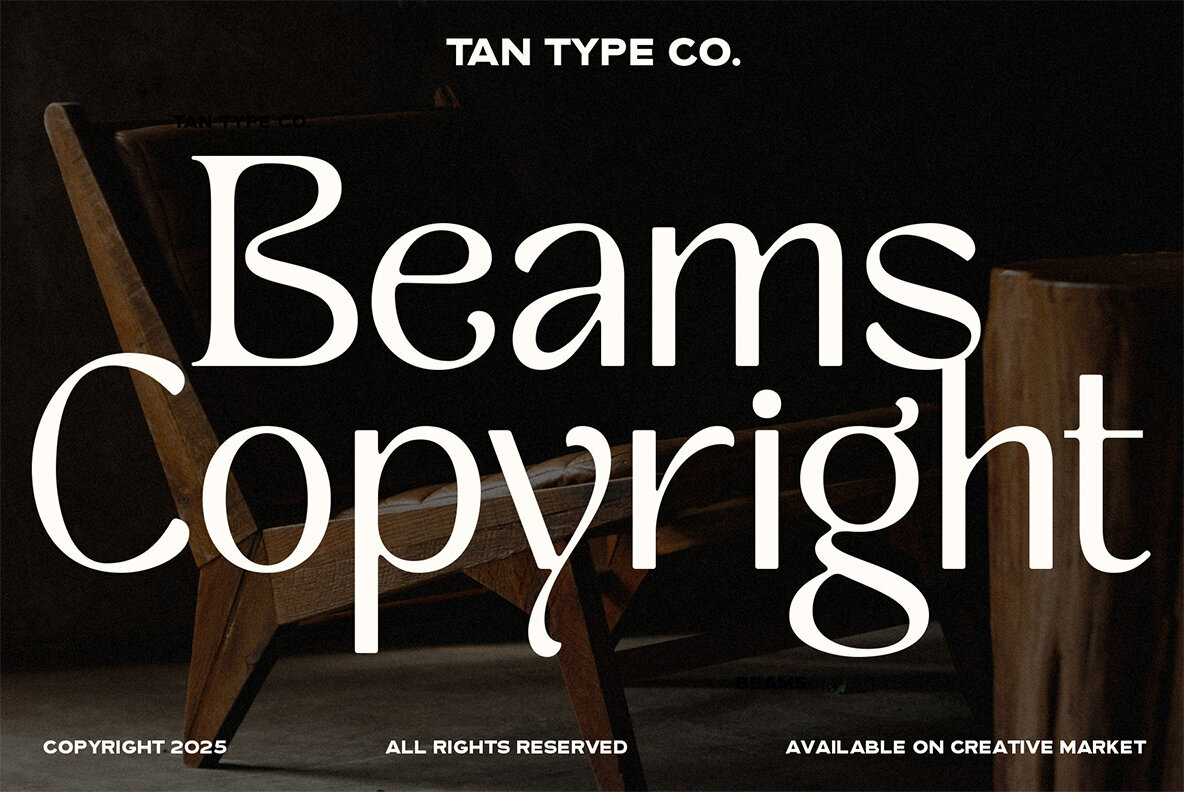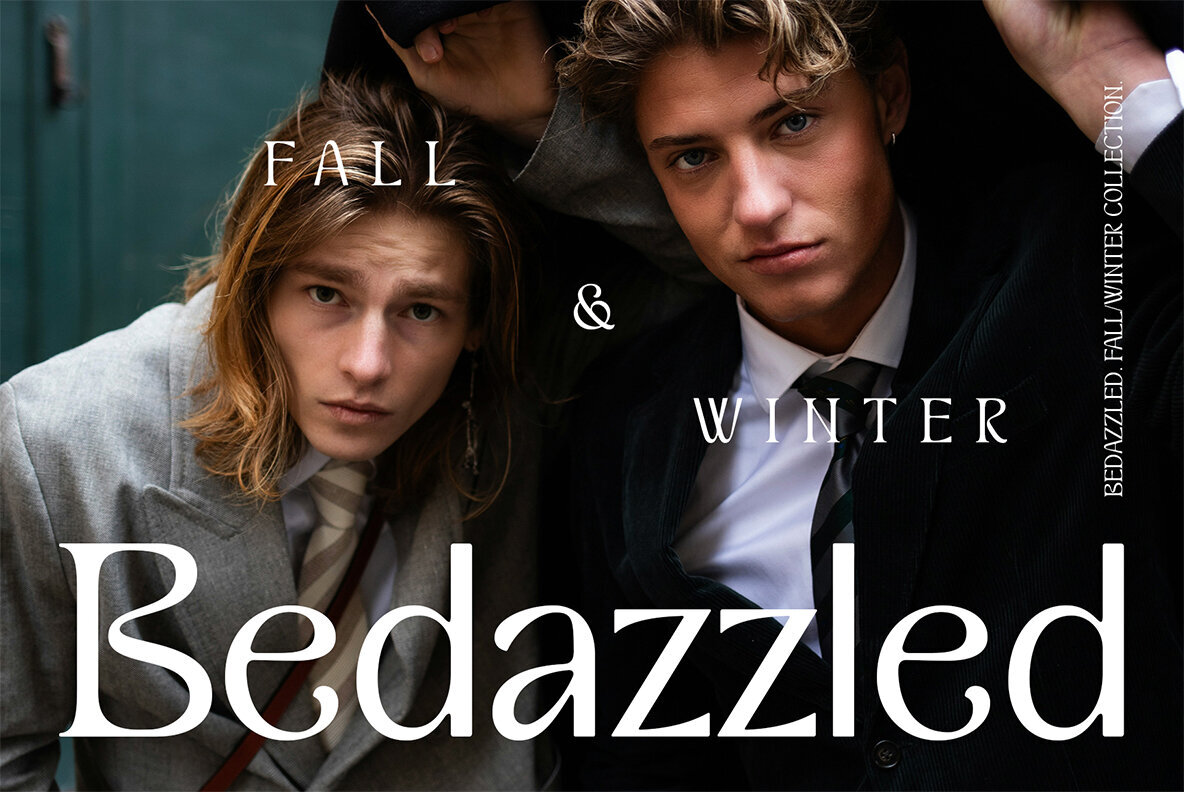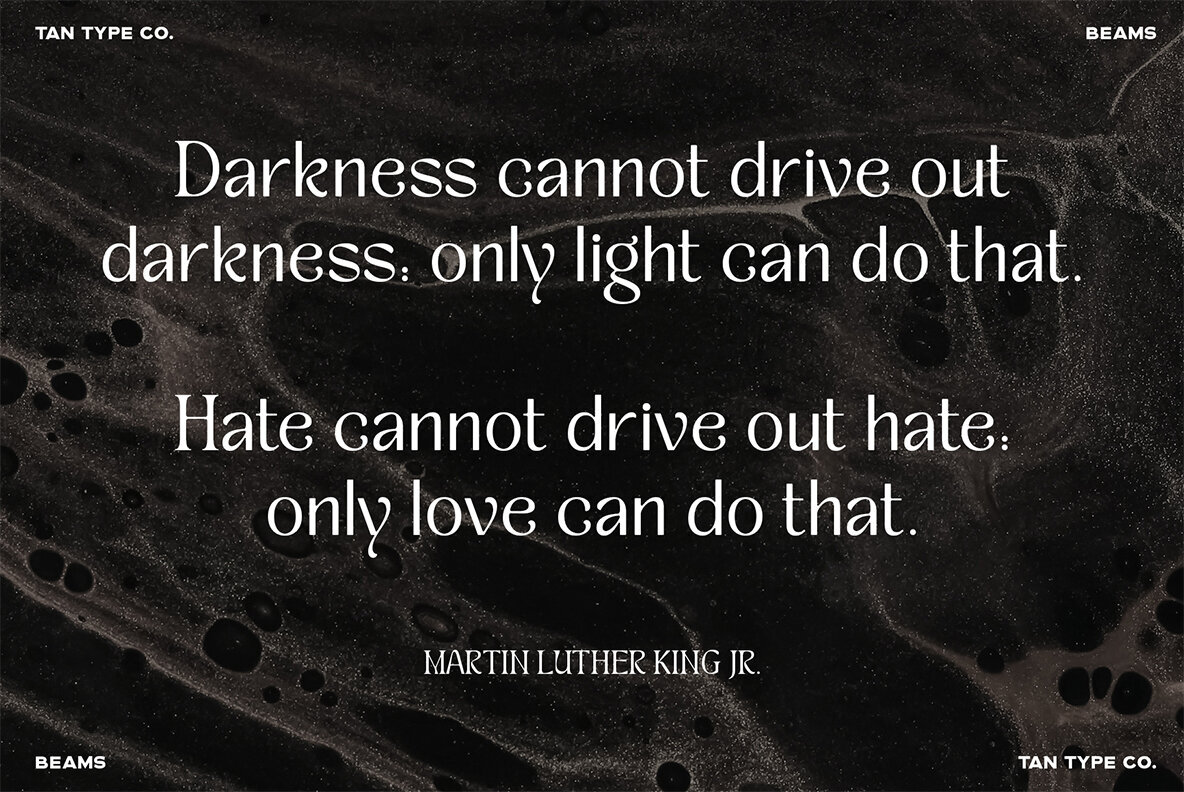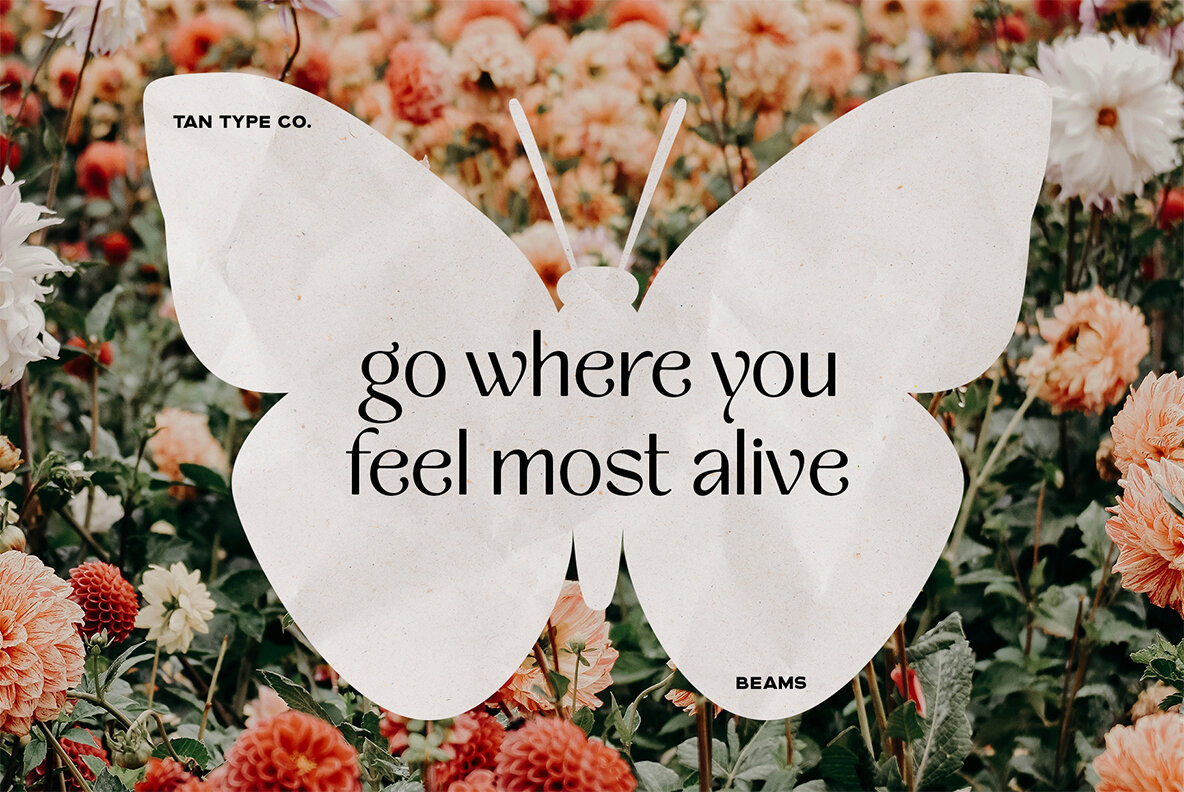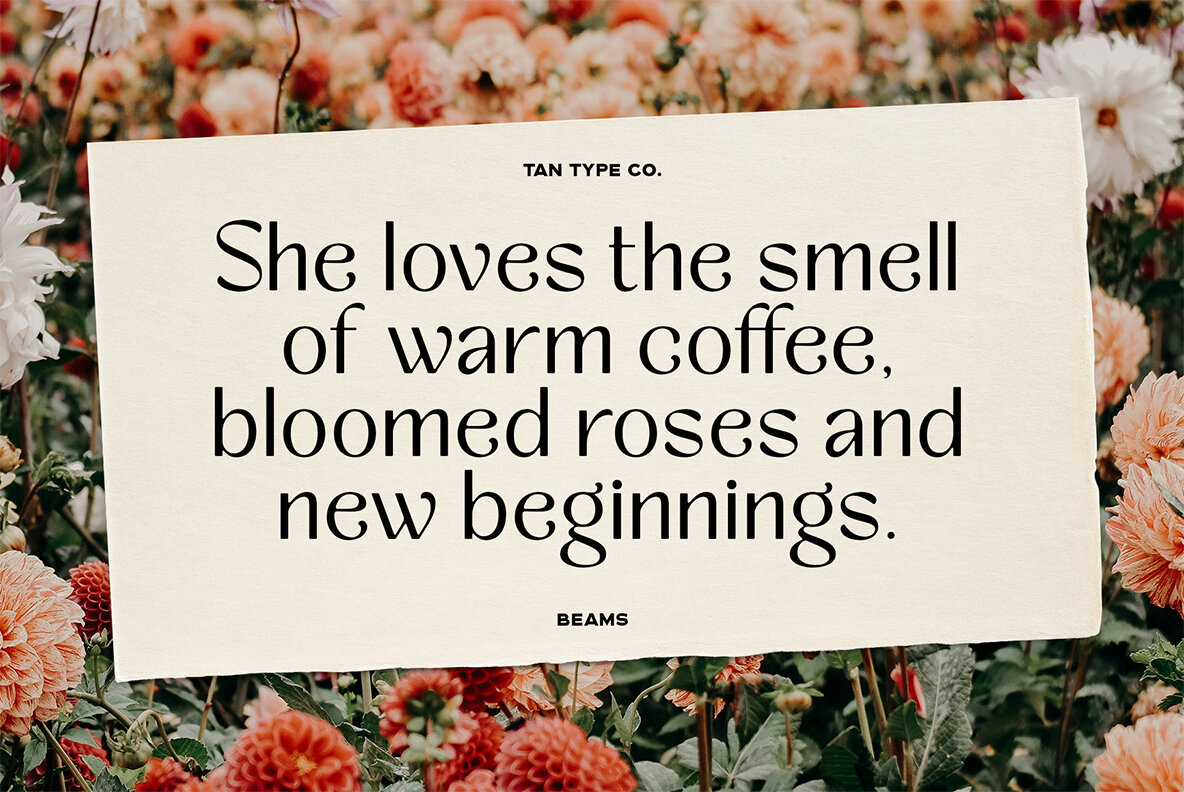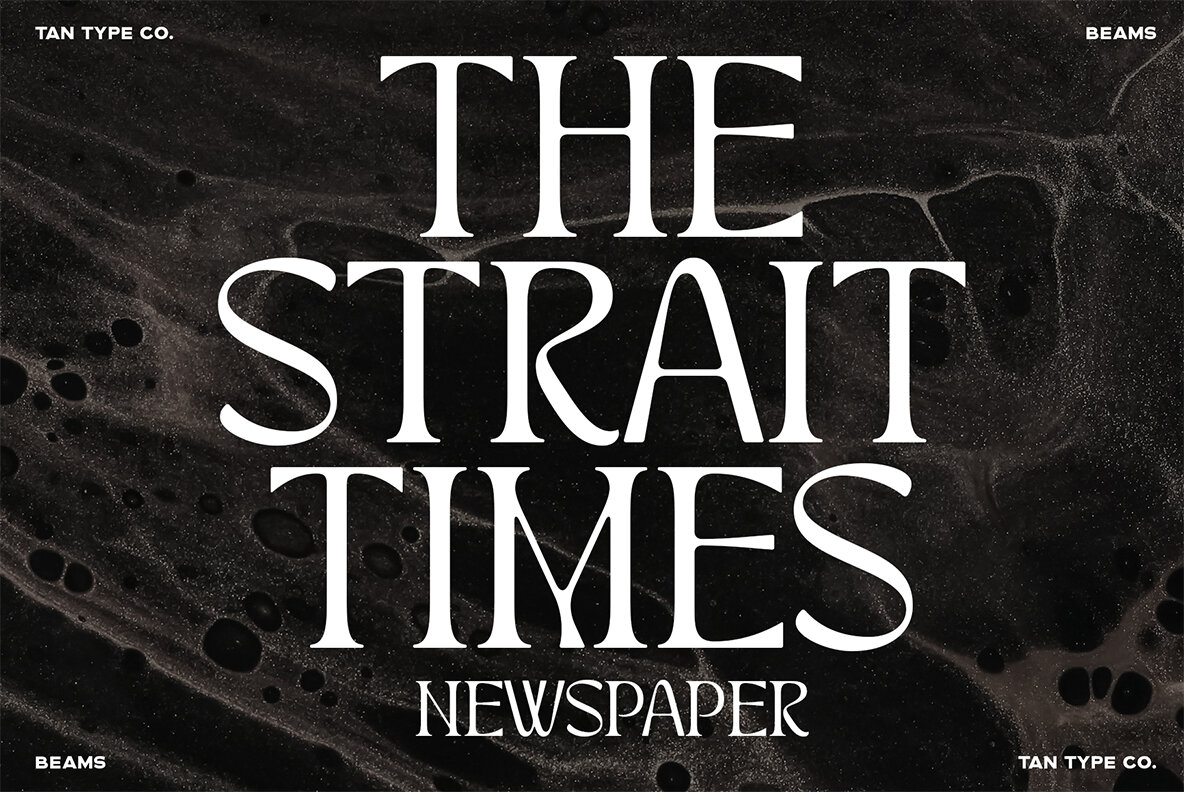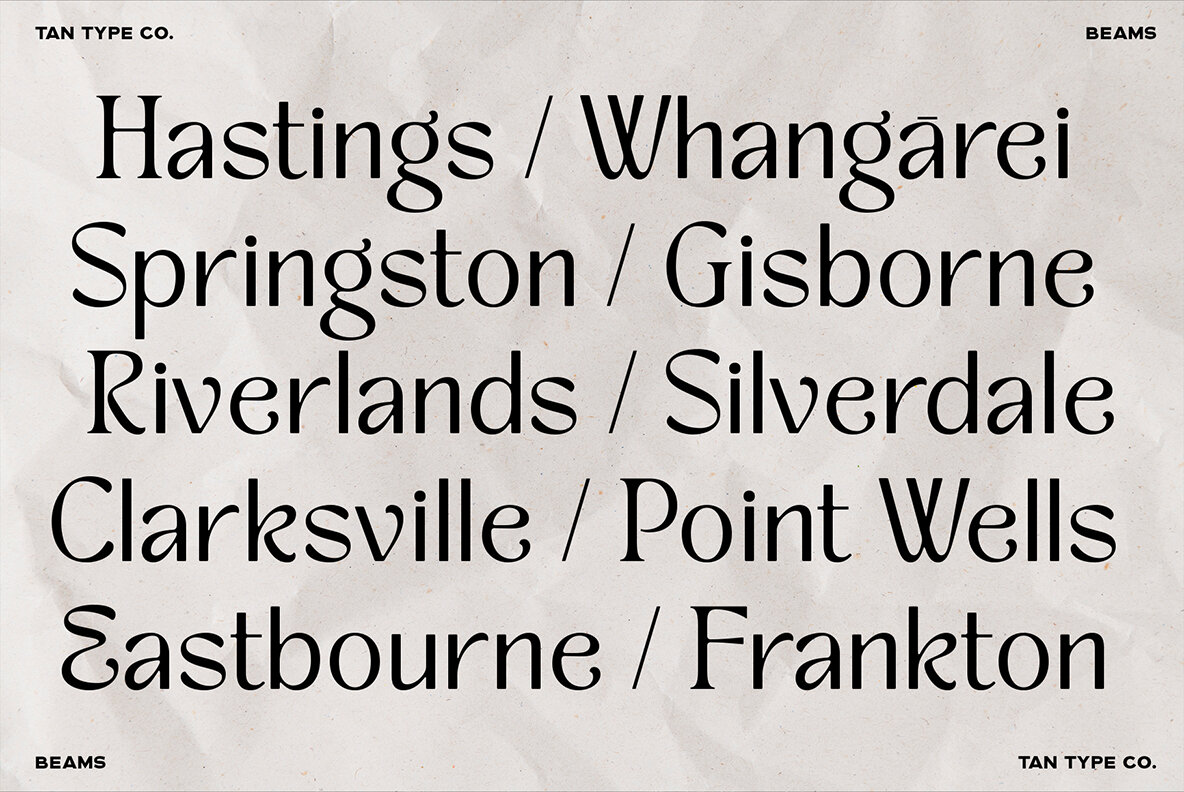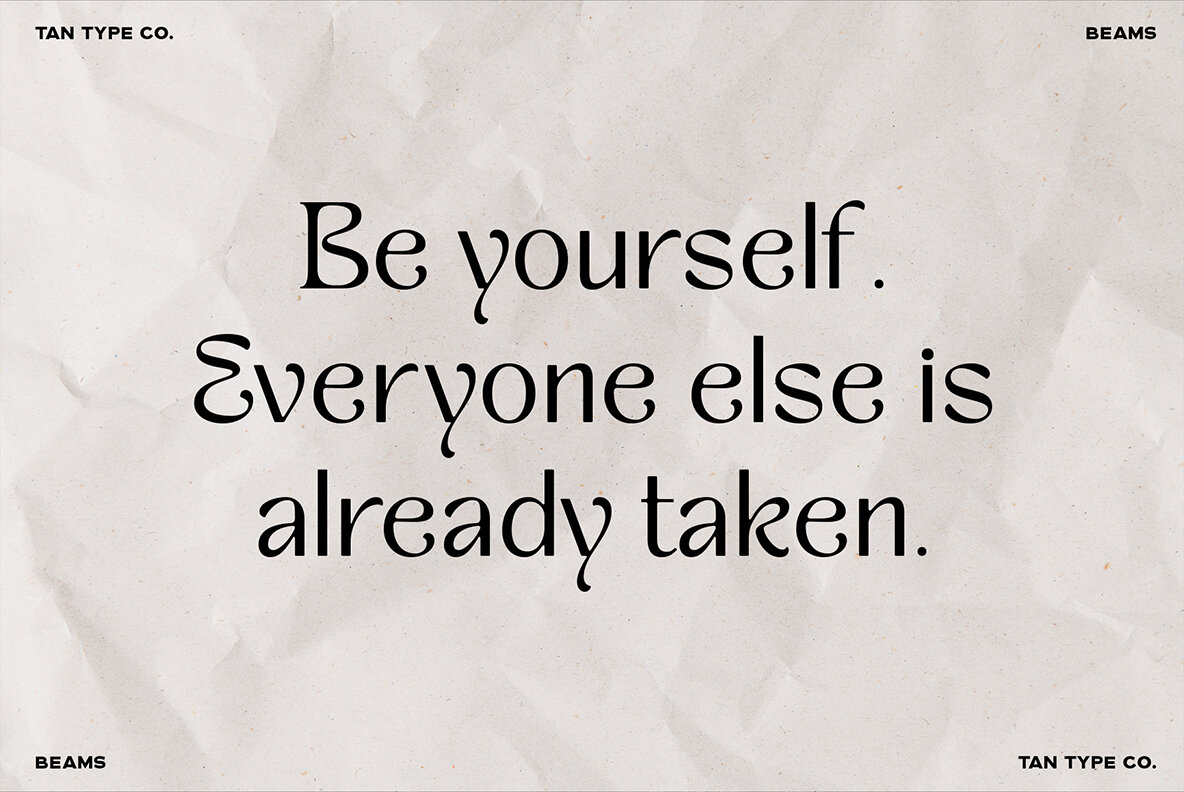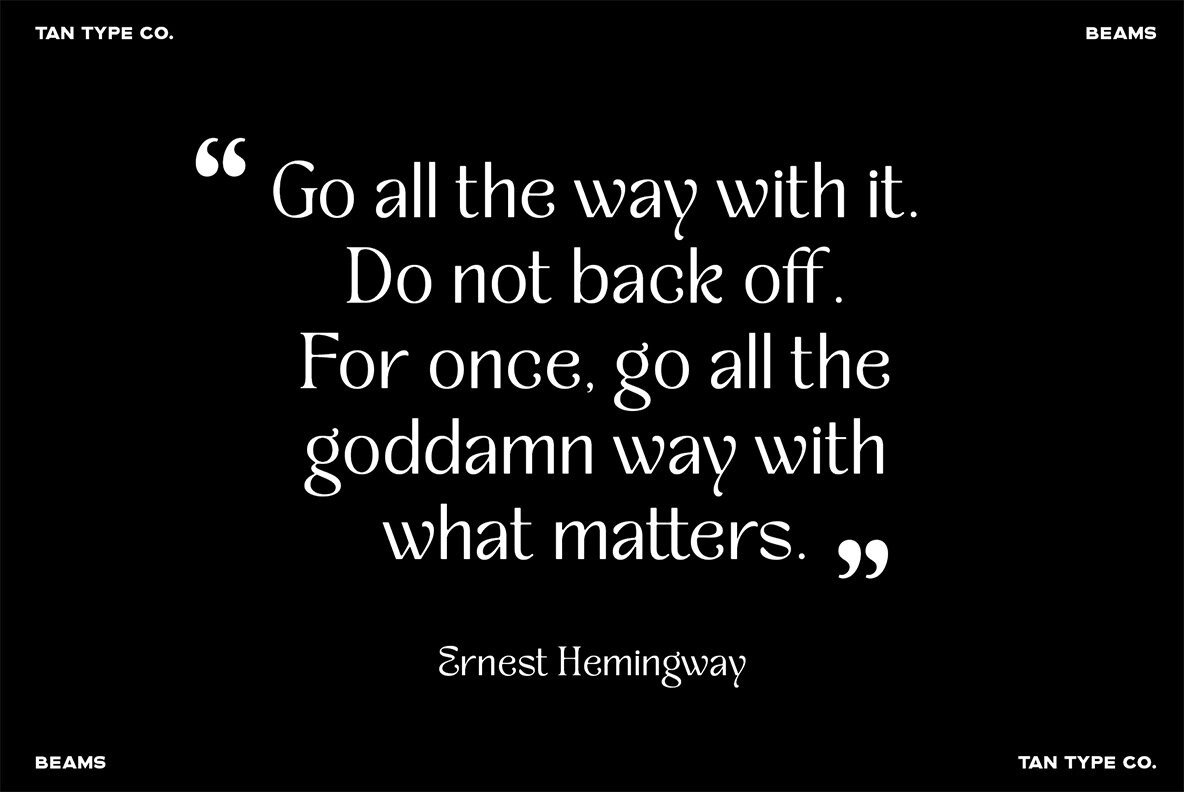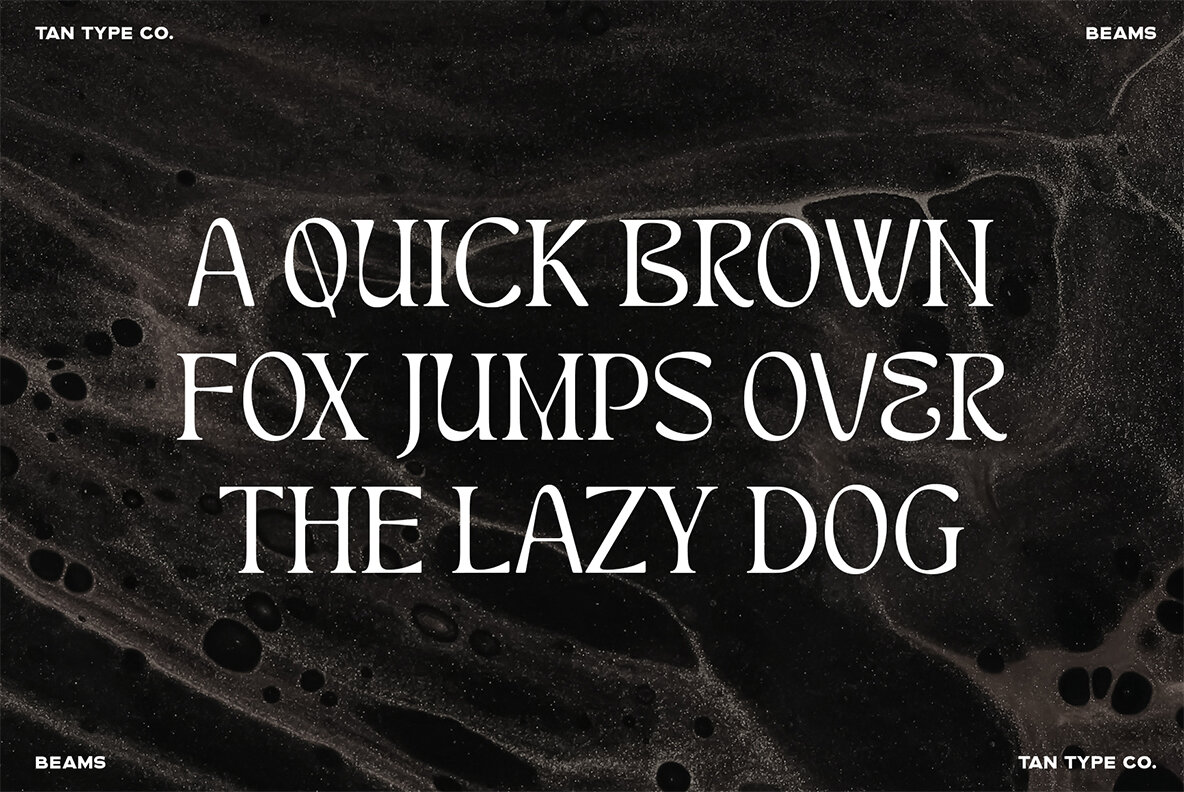
TAN BEAMS Font
TAN BEAMS Regular
Discover the elegance of TAN BEAMS, a captivating fusion of serif and sans serif styles. This unique font artfully combines casual, rounded lines with gentle curves to offer playful charm without sacrificing refined formality. The relaxed design ensures approachability, while the clean structure maintains a professional tone. Perfect for striking the balance between contemporary appeal and timeless sophistication, TAN BEAMS is your go-to choice for any project requiring versatile design.TAN BEAMS Font: The Sophisticated Harmony of Serif and Sans Serif